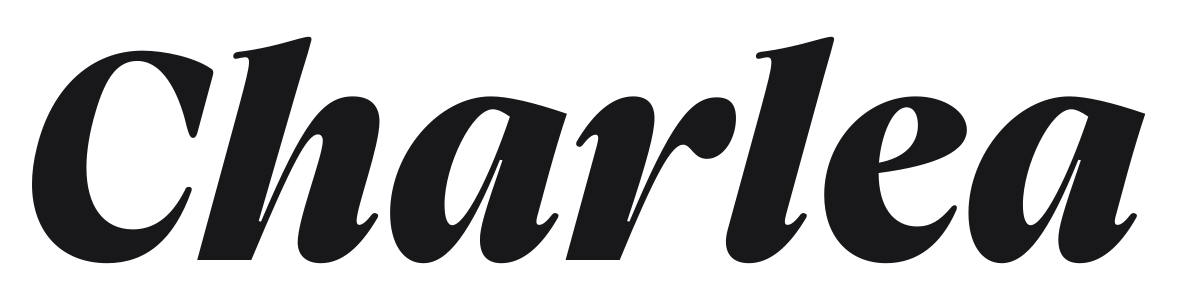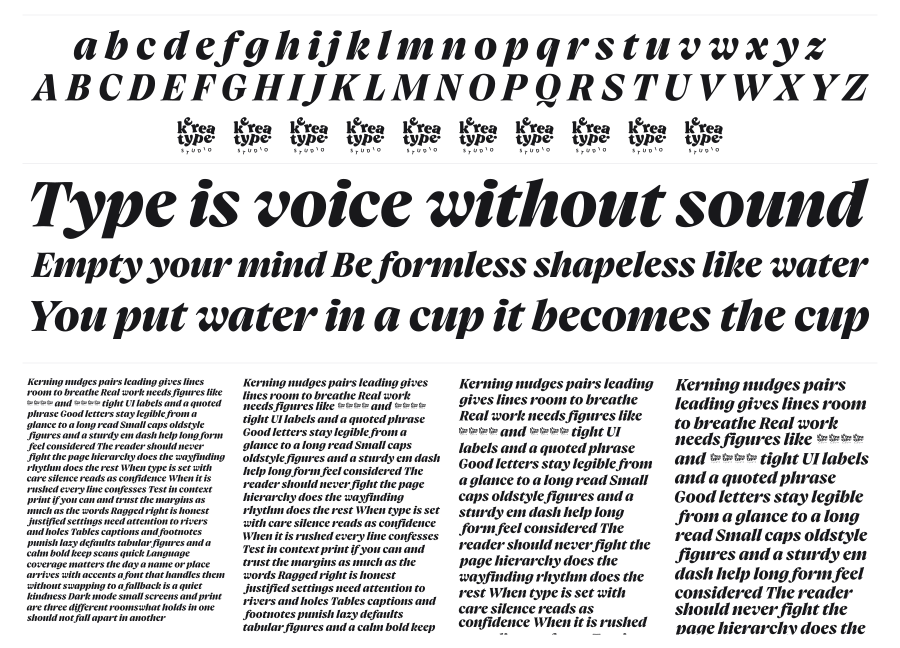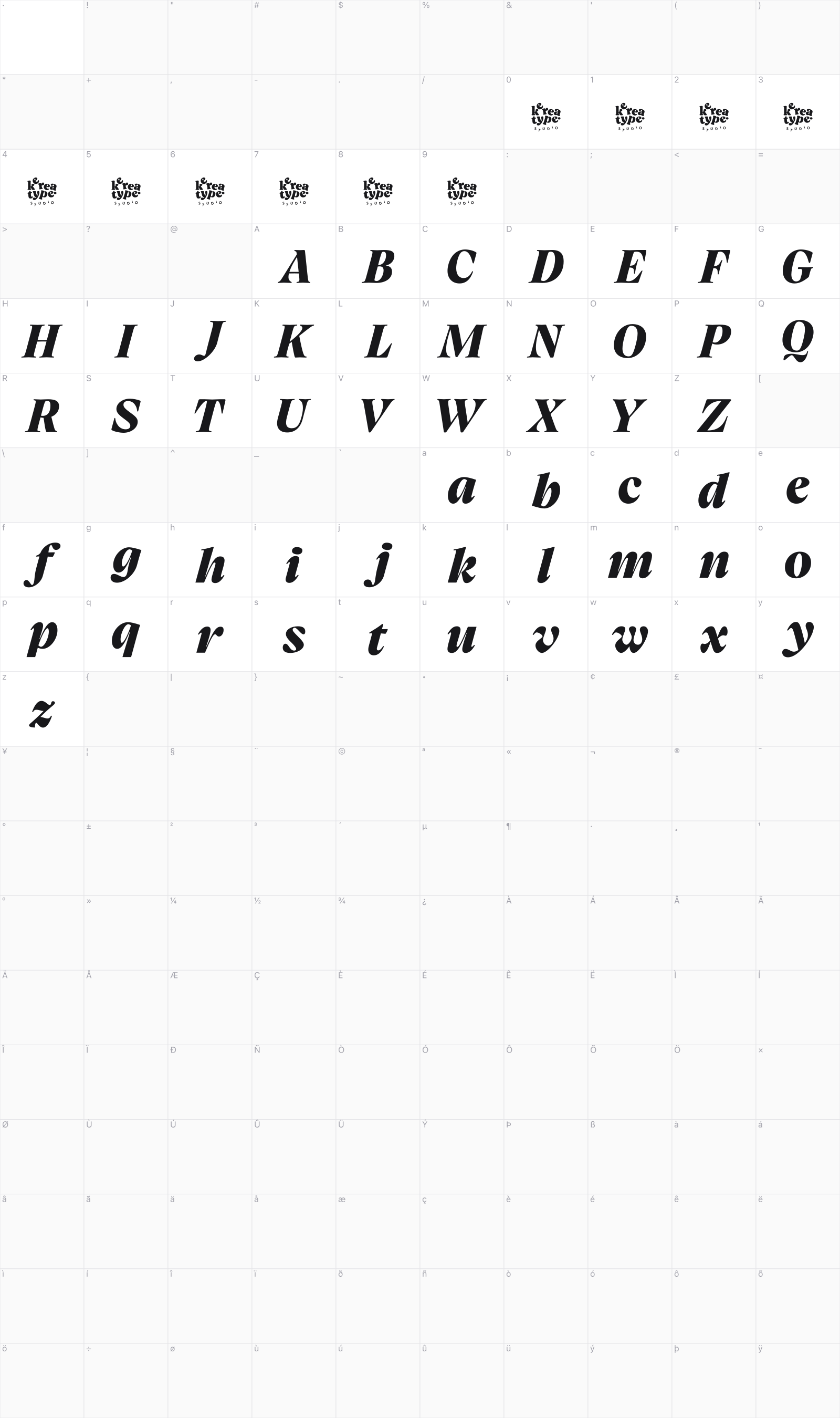
Charlea
Charlea is a bold italic modern serif with high stroke contrast and strong Didone influence. The sweeping italic angle, sharp hairline serifs, and heavy stems give it a commanding editorial presence. It works best large, where the drama of the contrast can fully register.